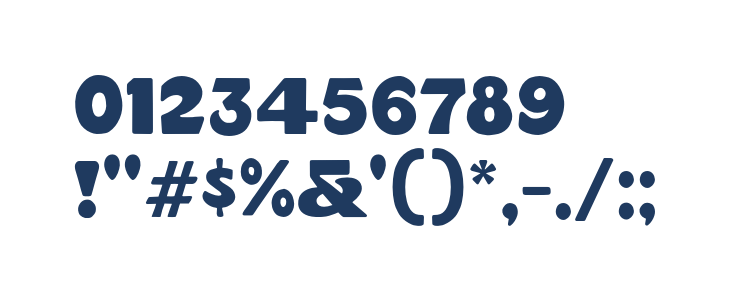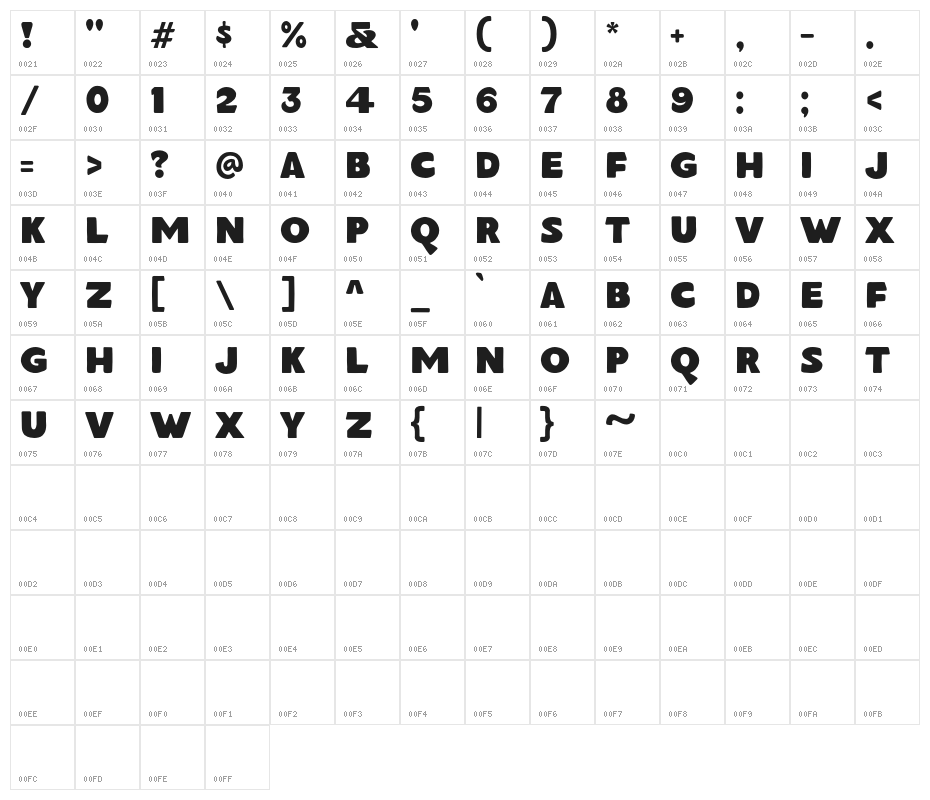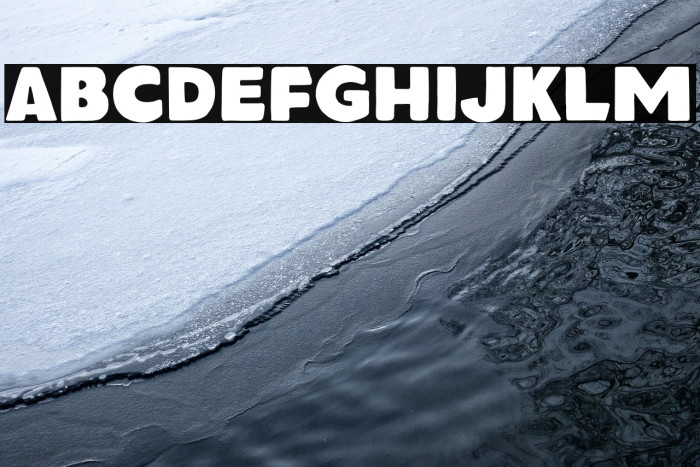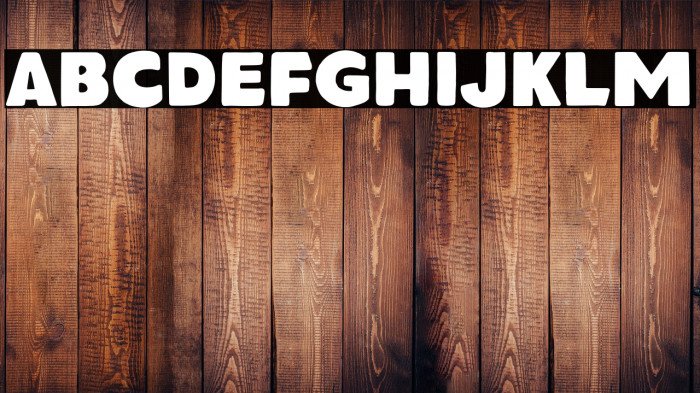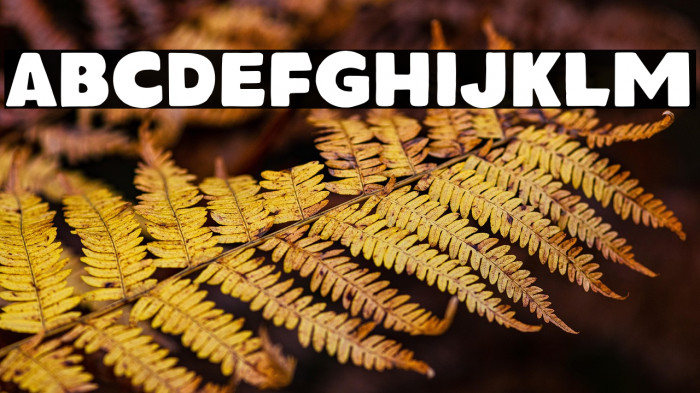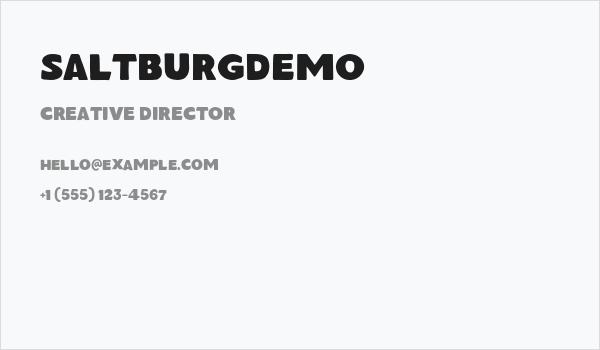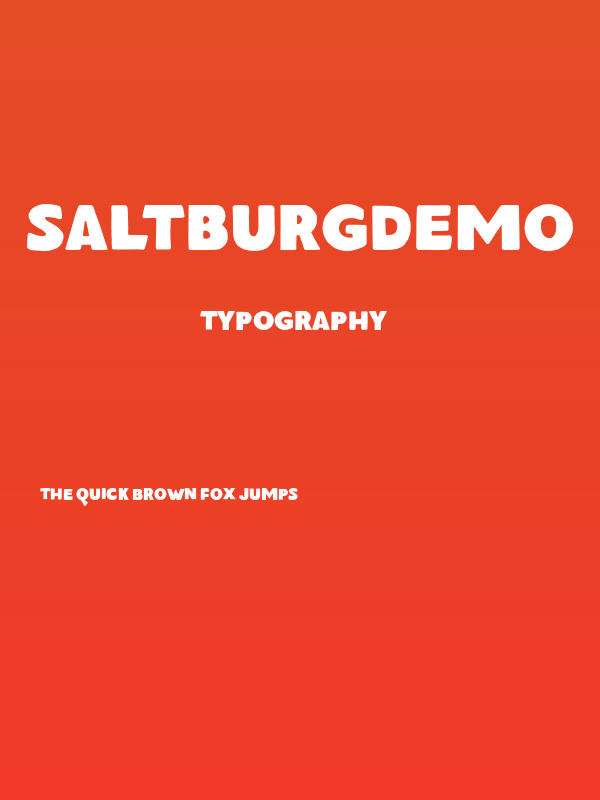
SaltburgDEMO Font
SaltburgDEMO Description
This font features bold, rounded characters with a playful and friendly appearance. The letters are uniformly thick, giving it a strong presence, while the rounded edges soften its overall look. The font maintains a consistent weight throughout, ensuring readability and a cohesive visual style. Its design is both modern and approachable, making it suitable for a variety of applications. The numbers and special characters are designed to match the letters, maintaining the same bold and rounded characteristics. This font is ideal for projects that require a fun and engaging typeface.
| Proposed Projects | Ideal for children's books, playful branding, posters, and social media graphics. |